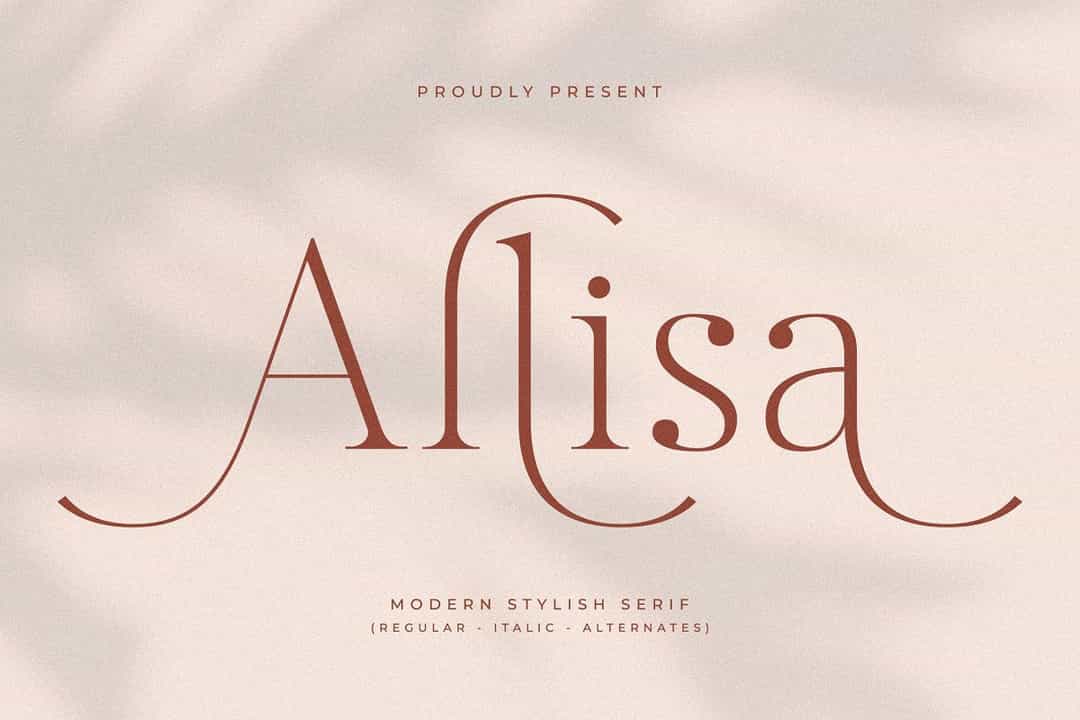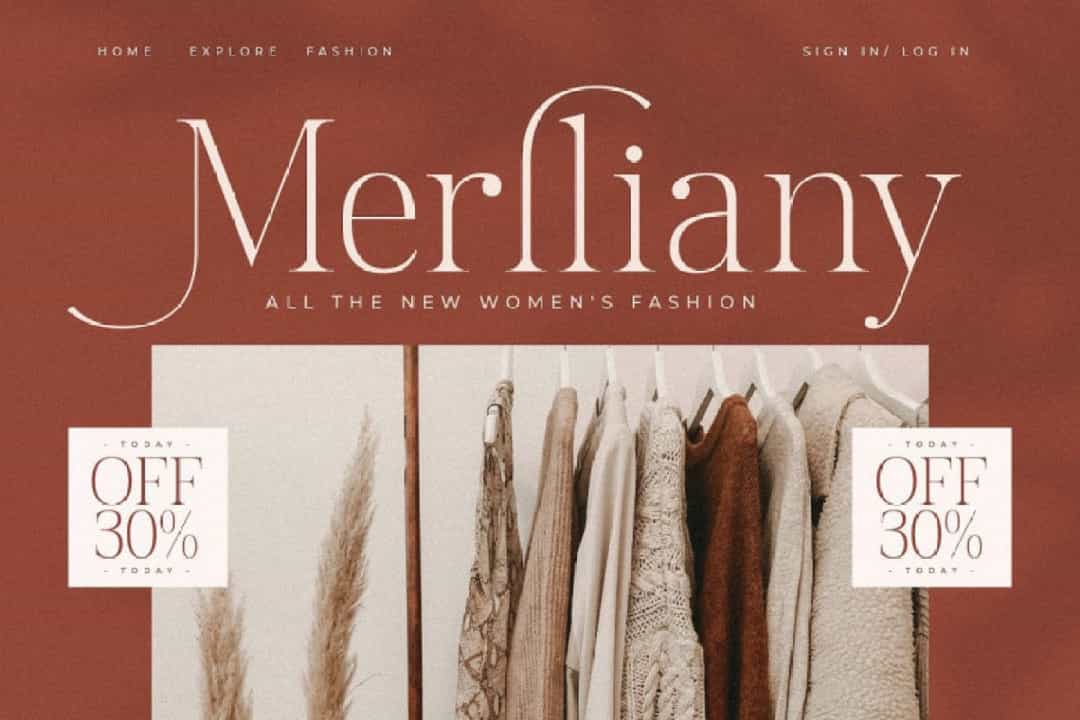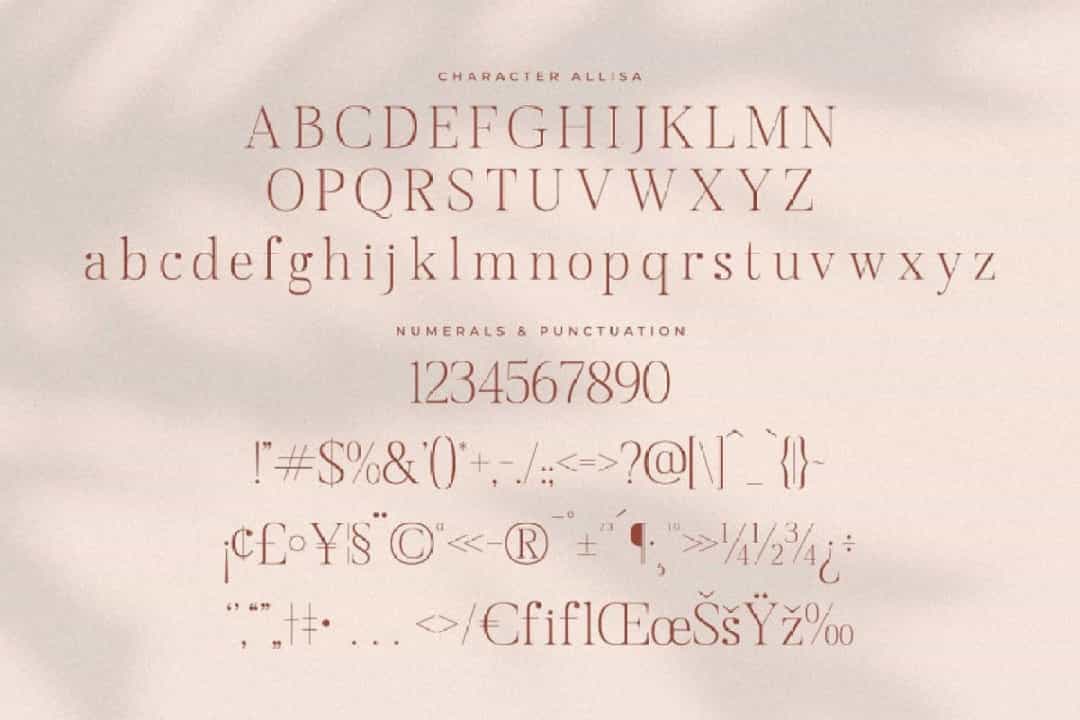
Allisa can be described as an elegant and modern serif typeface with its own distinct style and contemporary appeal. Ideal for sophisticated logos, book or film titles, fashion labels clothing stores, magazine letters quotes or any other purpose, Allisa makes an impactful impression wherever it goes.